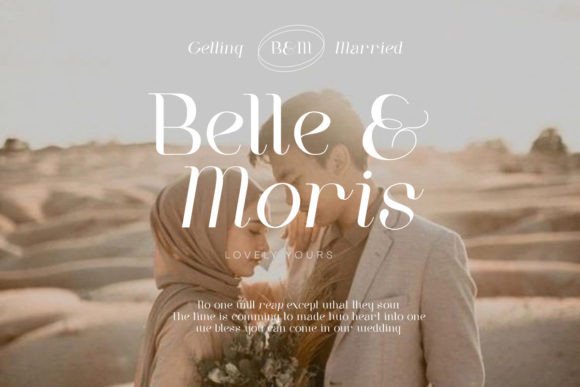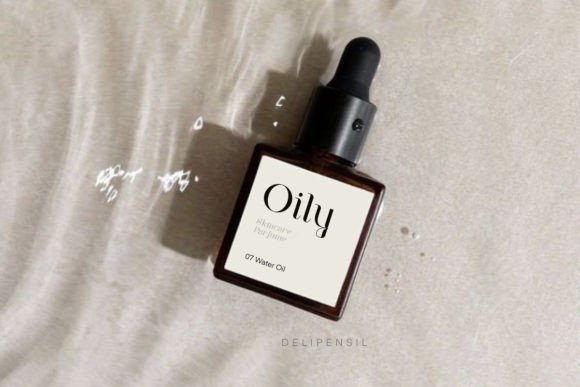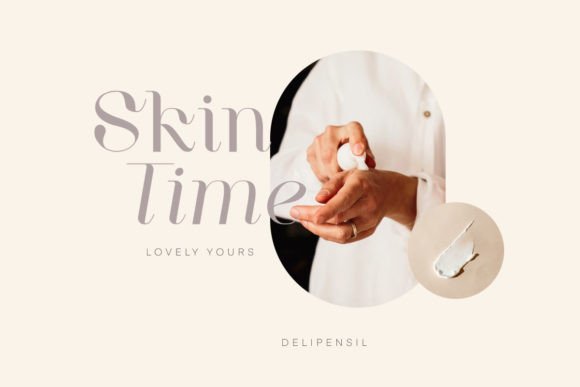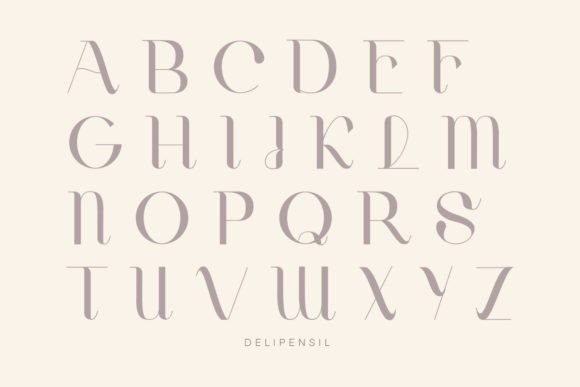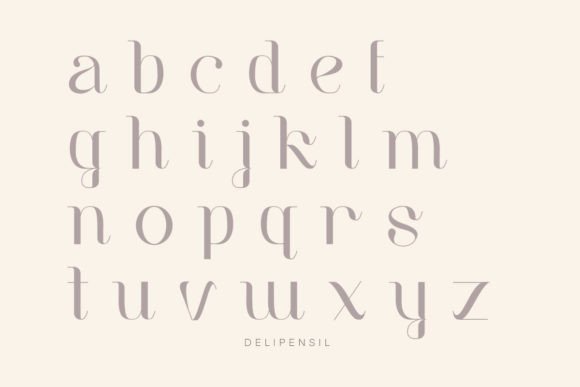
Introduction to Helcy Font
Helcy – Elegant Serif Typeface Beauty Serif font, clean classic and mindful, it combines in one font, use this font for anything beautiful place for your logo, headline, cover book, magazine, and many more.
| 👤 Author | delipensil |
Key Features of Helcy Font